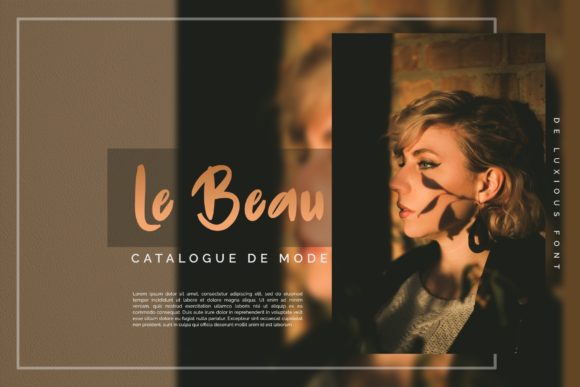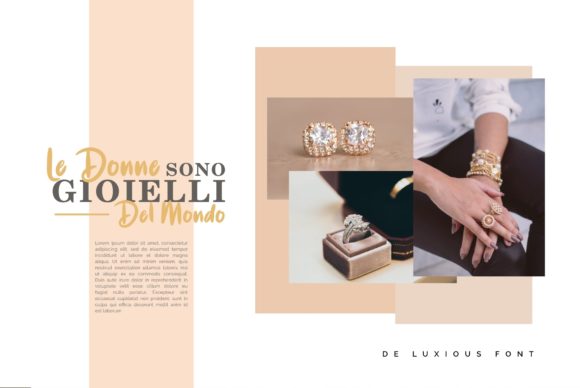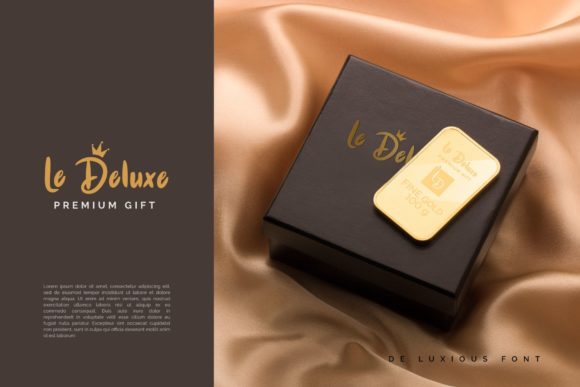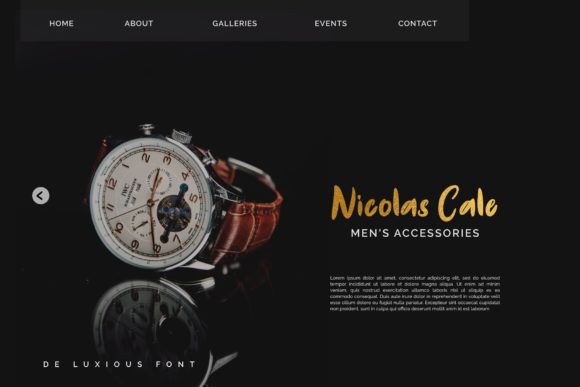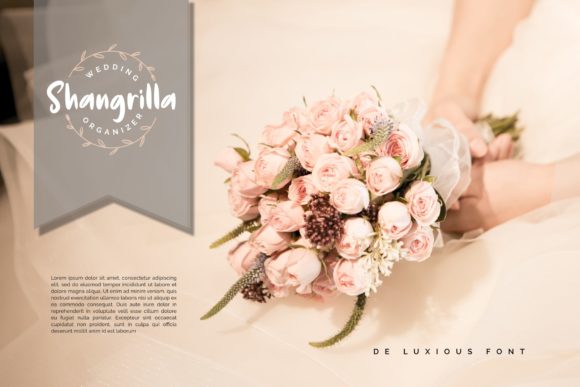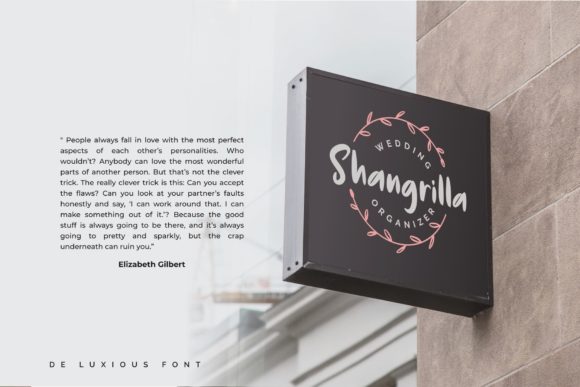
Introduction to De Luxious Font
Imagine you’re working on a high-end branding project, and you need that perfect font to make your logo stand out. You’ve tried countless options, but nothing seems to give your design that luxurious touch. That’s where De Luxious Font comes in – a game-changing design resource that will elevate your creative project to new heights.
As a designer, you know how much attention to detail matters. That’s why De Luxious Font is a valuable addition to your toolkit. With its sleek, sophisticated design, it’s perfect for logos, branding, signatures, posters, and every other design that requires a luxurious touch. Whether you’re working on a free download or a high-end commercial project, De Luxious Font is sure to impress.
Key Features of De Luxious Font
- High-quality, vector-based font suitable for creative projects and design resources, available for free download.
- Includes 6 unique font styles, each with its own distinct character and flair, perfect for adding a touch of elegance to your design.
- Resolution-independent, ensuring crisp and clear typography at any size, making it ideal for both small and large-scale designs.
- Designed to be highly legible, with clear and concise letterforms that are easy to read, even at small font sizes.
- Perfect for use in a variety of creative projects, from branding and advertising to digital art and graphic design.
Honest Review: De Luxious Font
I recently had the chance to work with the De Luxious Font for a creative project, and I must say it’s a fantastic design resource. ✨ Its clean and elegant design makes it perfect for a variety of applications, from brochures to website headers.
One of the standout features of the De Luxious Font is its transparent background, which makes it incredibly versatile. You can easily place it over any background image or color without worrying about it getting lost in the mix.
Here are some of the things that work well with the De Luxious Font:
However, I did encounter a few limitations with the De Luxious Font:
- ⚠️ Limited character set, which may not be suitable for longer texts
- ⚠️ Not as customizable as some other fonts in its class
Overall, I’m impressed with the De Luxious Font and would definitely recommend it to designers looking for a high-quality design resource. Its unique design and transparent background make it a valuable addition to any creative project.
Tips for Getting the Most Out of De Luxious Font
Experiment with different font sizes, colors, and combinations to find the perfect look for your project. Additionally, consider using De Luxious Font in conjunction with other design elements, such as images or shapes, to create a visually appealing design.
De Luxious Font is ideal for a variety of creative projects, including logos, business cards, invitations, and social media graphics. Its elegant design and transparent background make it perfect for any project that requires a touch of sophistication and class.